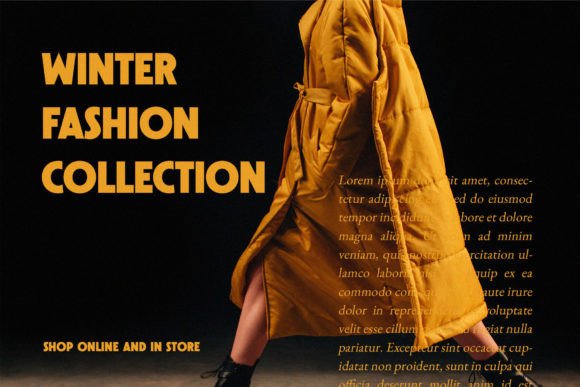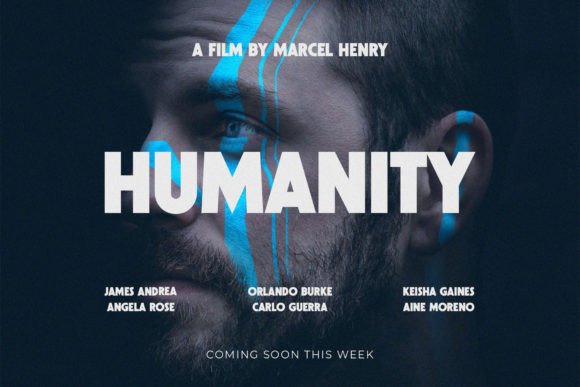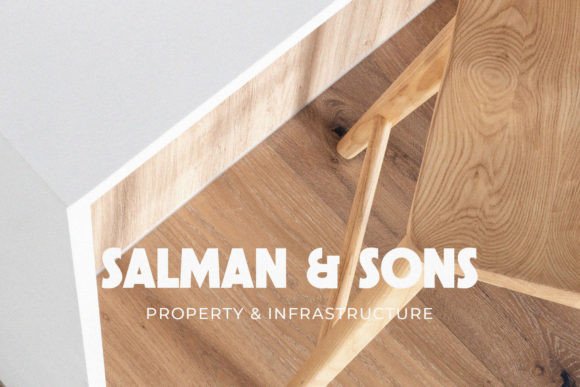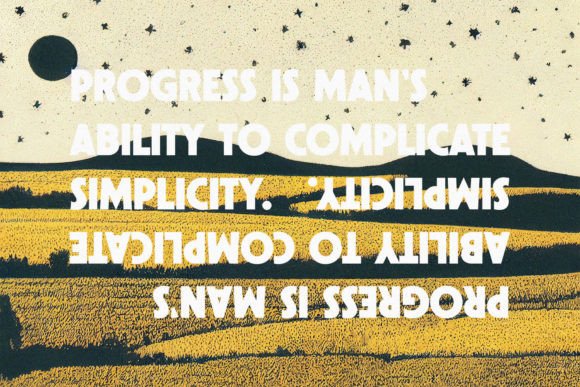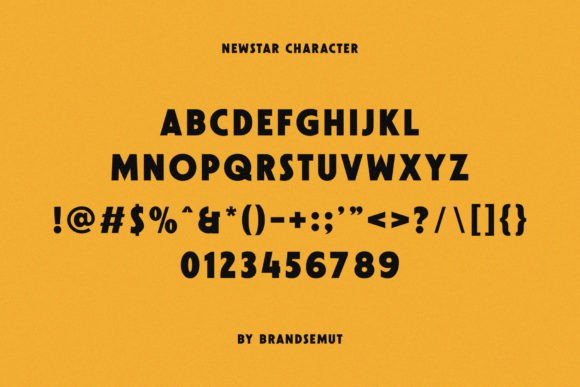
Introduction to Newstar Font
Newstar is a modern and nostalgic sans serif font, best used as a display for headings, logos, branding, magazines, product packaging, and invitations.
Newstar comes with clean lines and smooth curves, giving any project an extra touch of class .